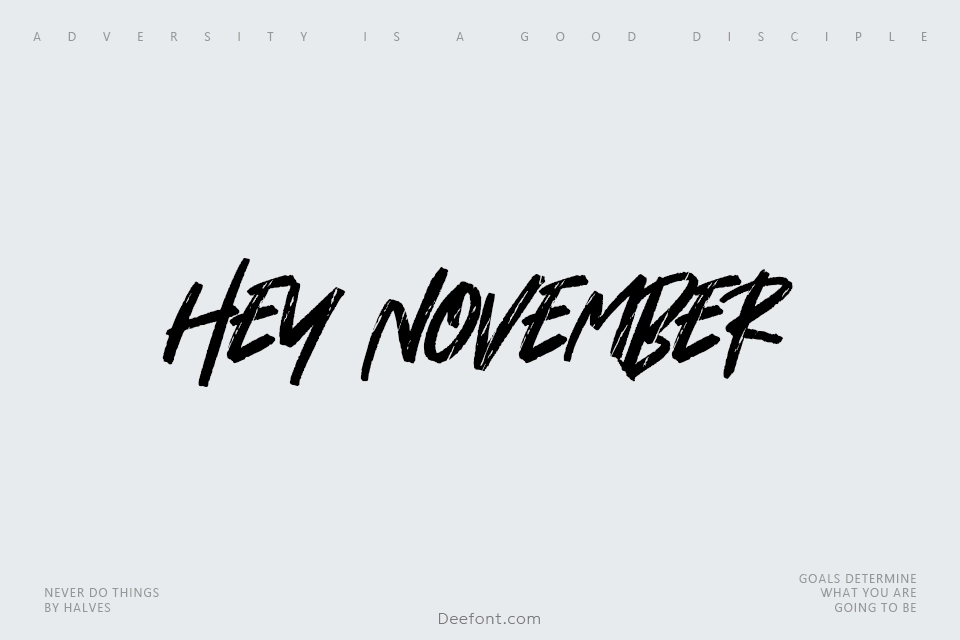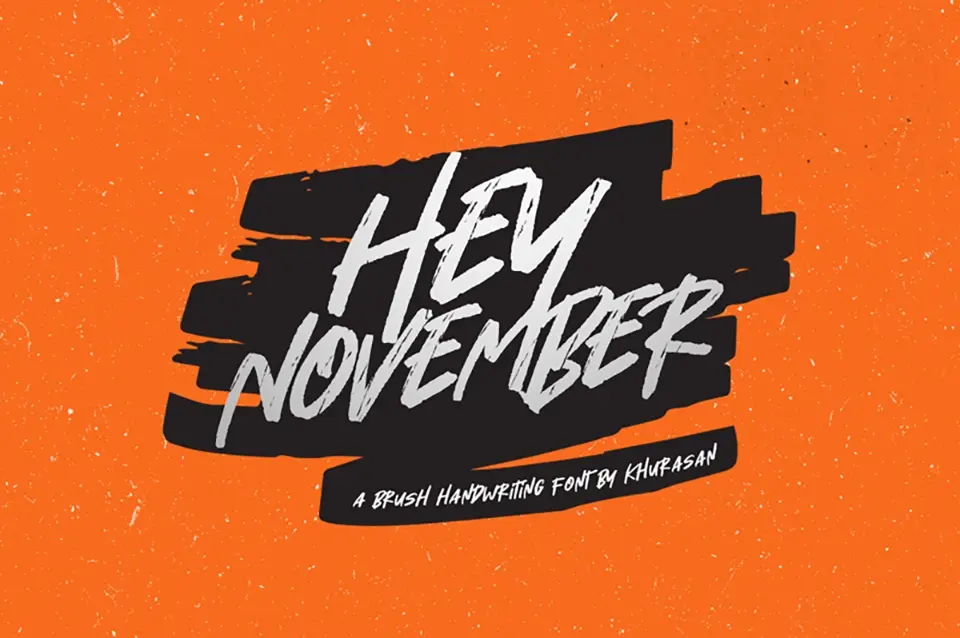
Hey November Font
Hey November is a bold and dynamic brush script font featuring expressive, energetic strokes with a handwritten aesthetic. Created with uppercase and lowercase letters, this font maintains a consistent artistic style with sharp angles and a slightly slanted orientation. The letters are characterized by fluid movement and urgency, making it ideal for branding, posters, album covers, and designs requiring strong visual impact. With 185 glyphs supporting 36 languages, Hey November brings modern, decorative appeal to logos, headlines, social media posts, packaging, and creative projects that demand artistic flair and contemporary style.